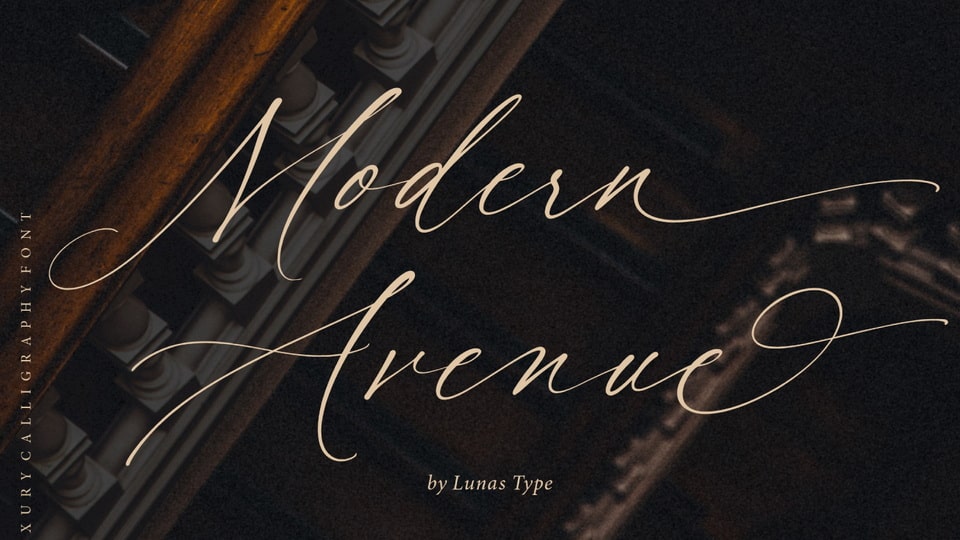
Download Modern Avenue font, a modern and luxury calligraphy typeface with a stunning characters set, perfectly managed with well spaced and kerning. The theme style of Modern Avenue font will elegant, luxury, gold, vintage, stylish, sophisticated style.
Designer: Lunas Type